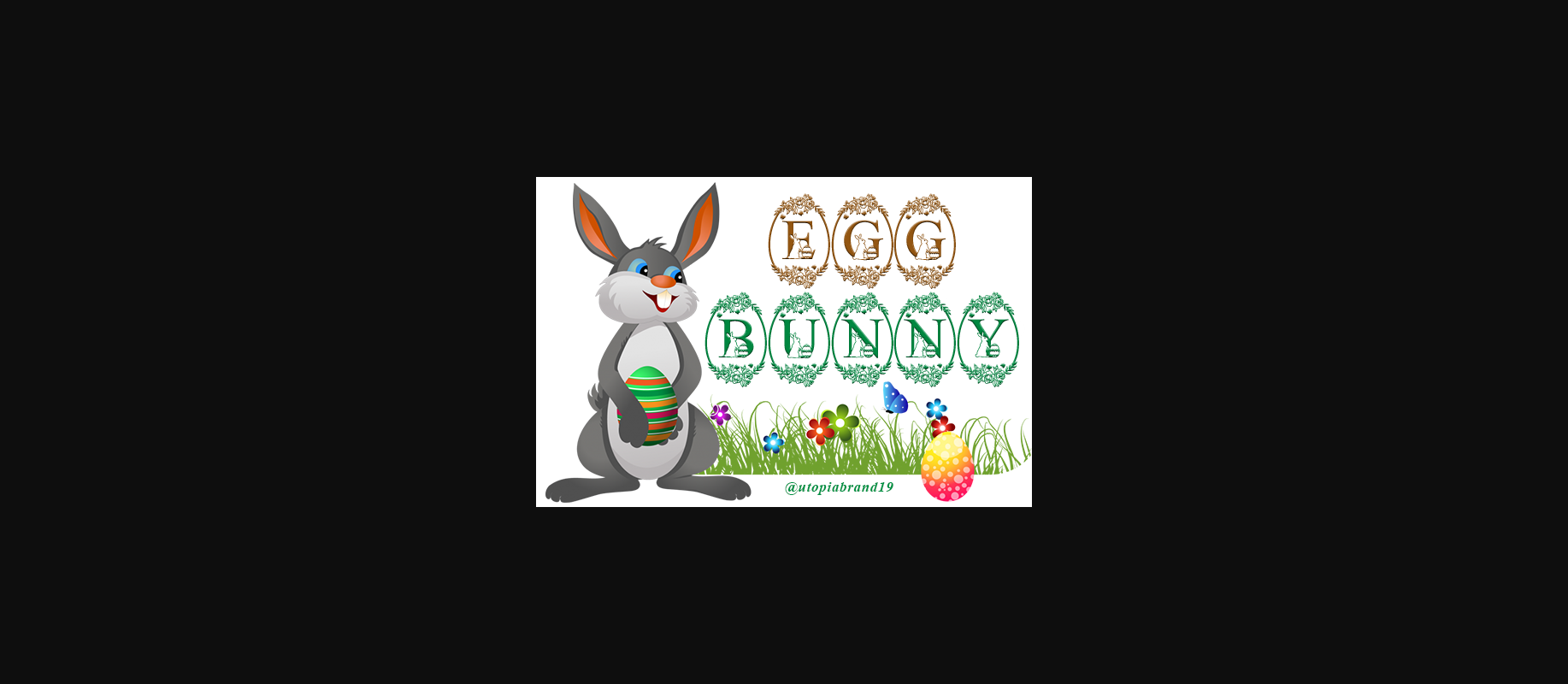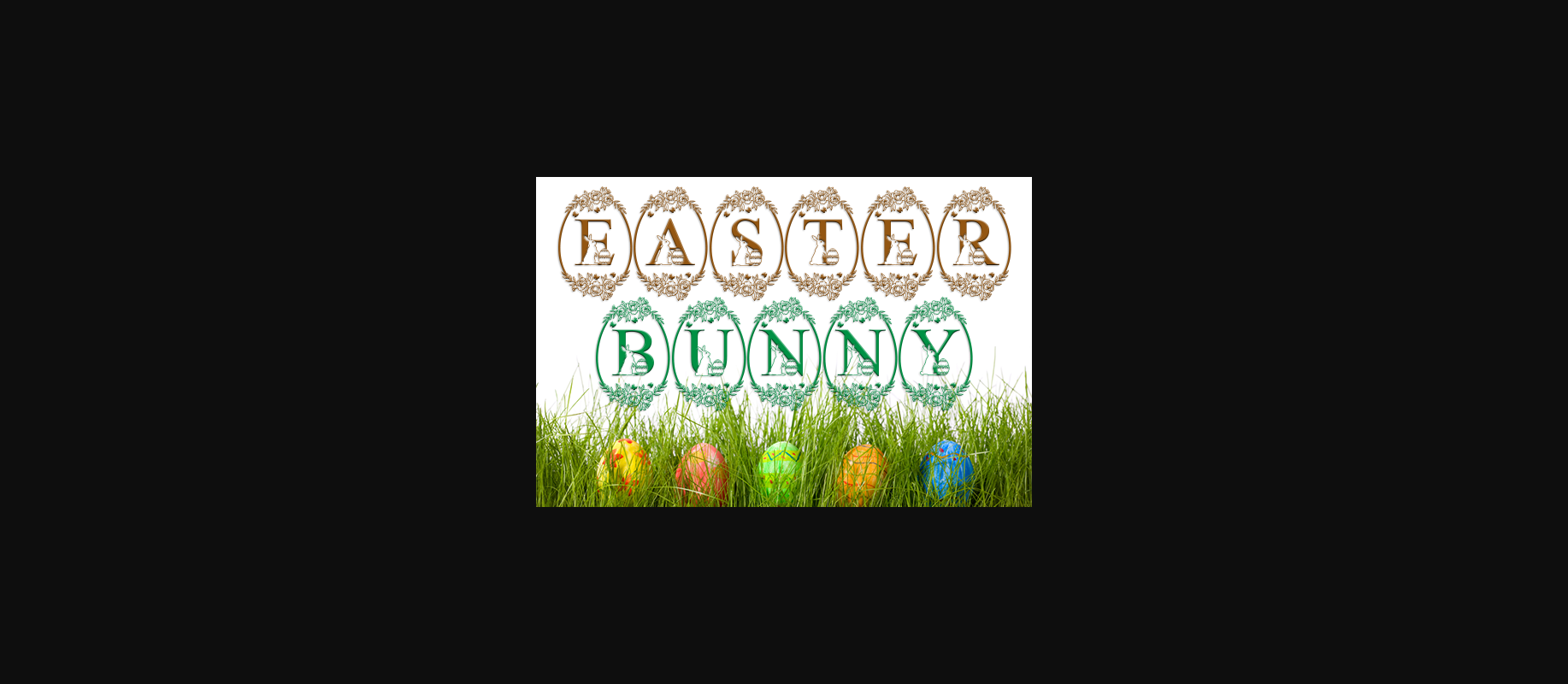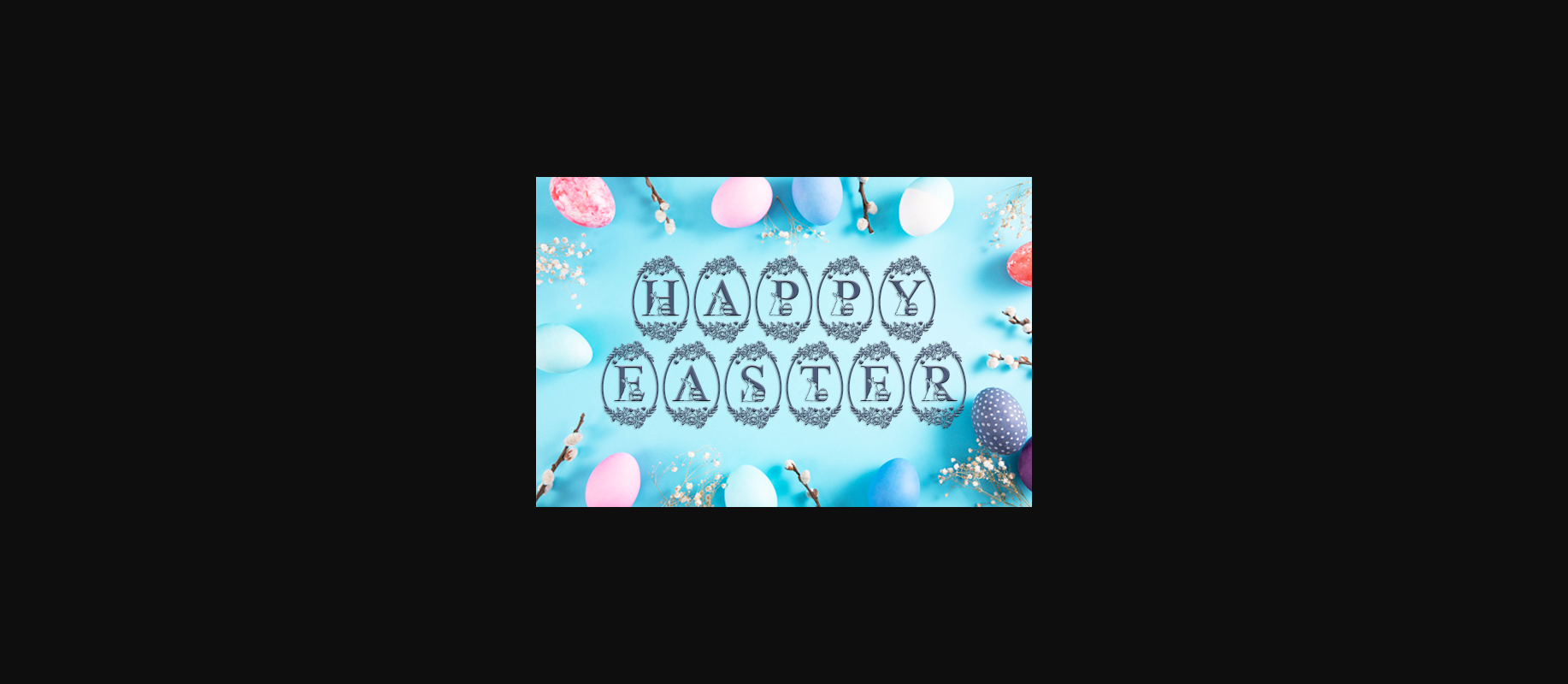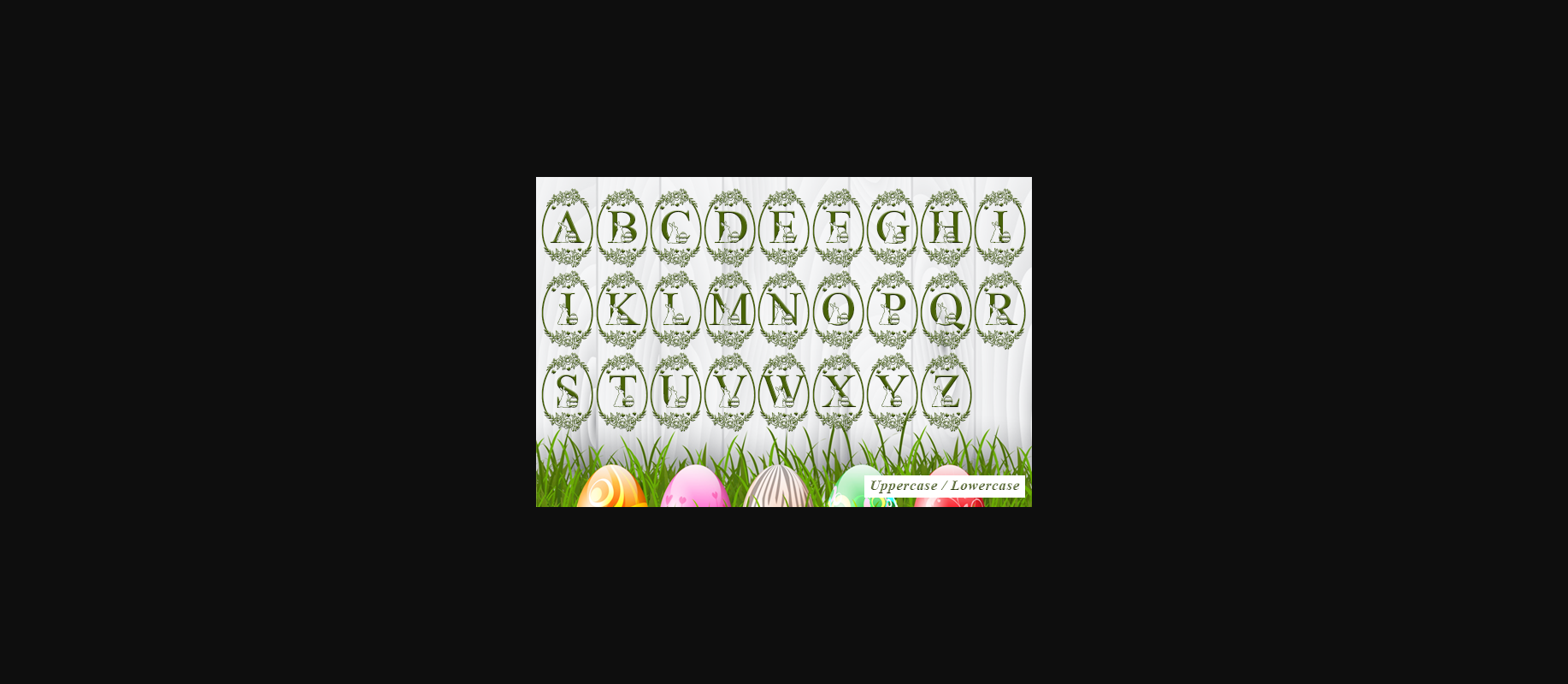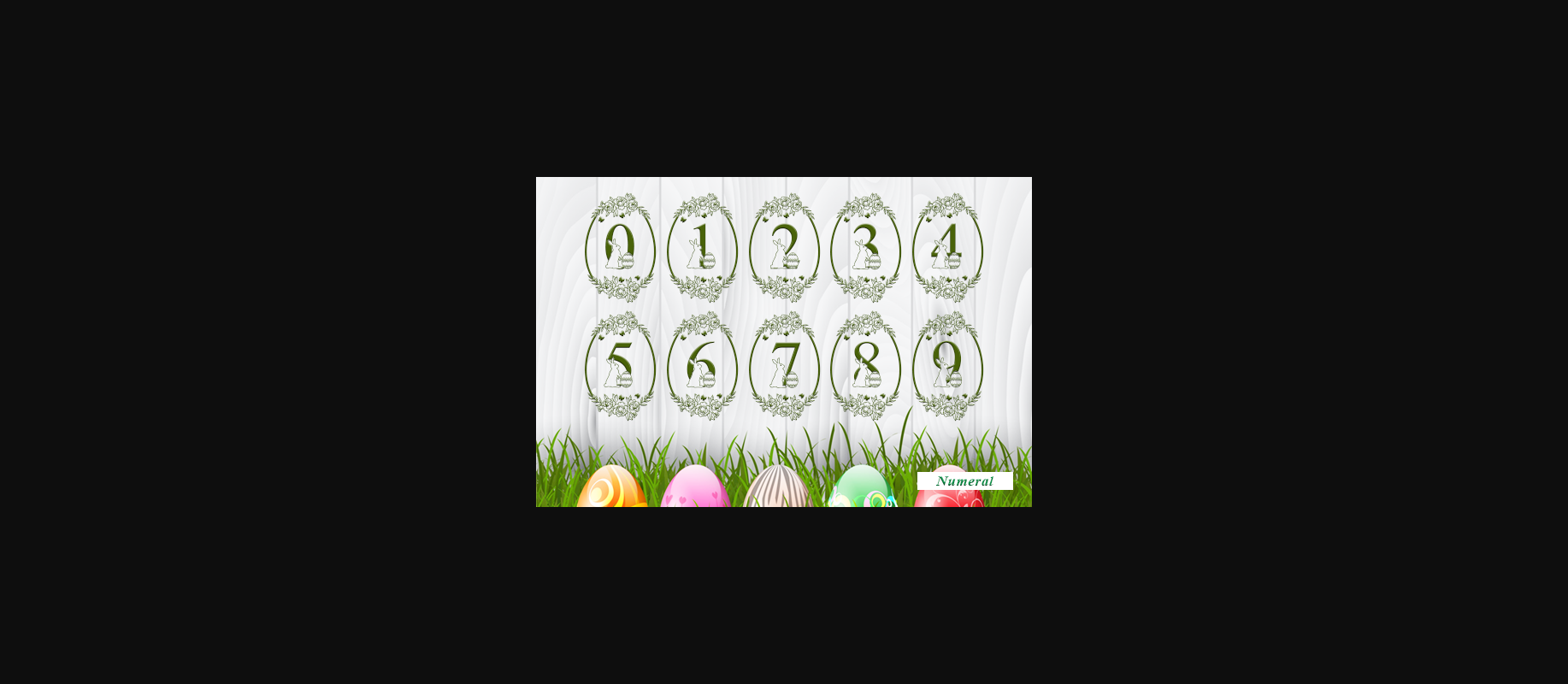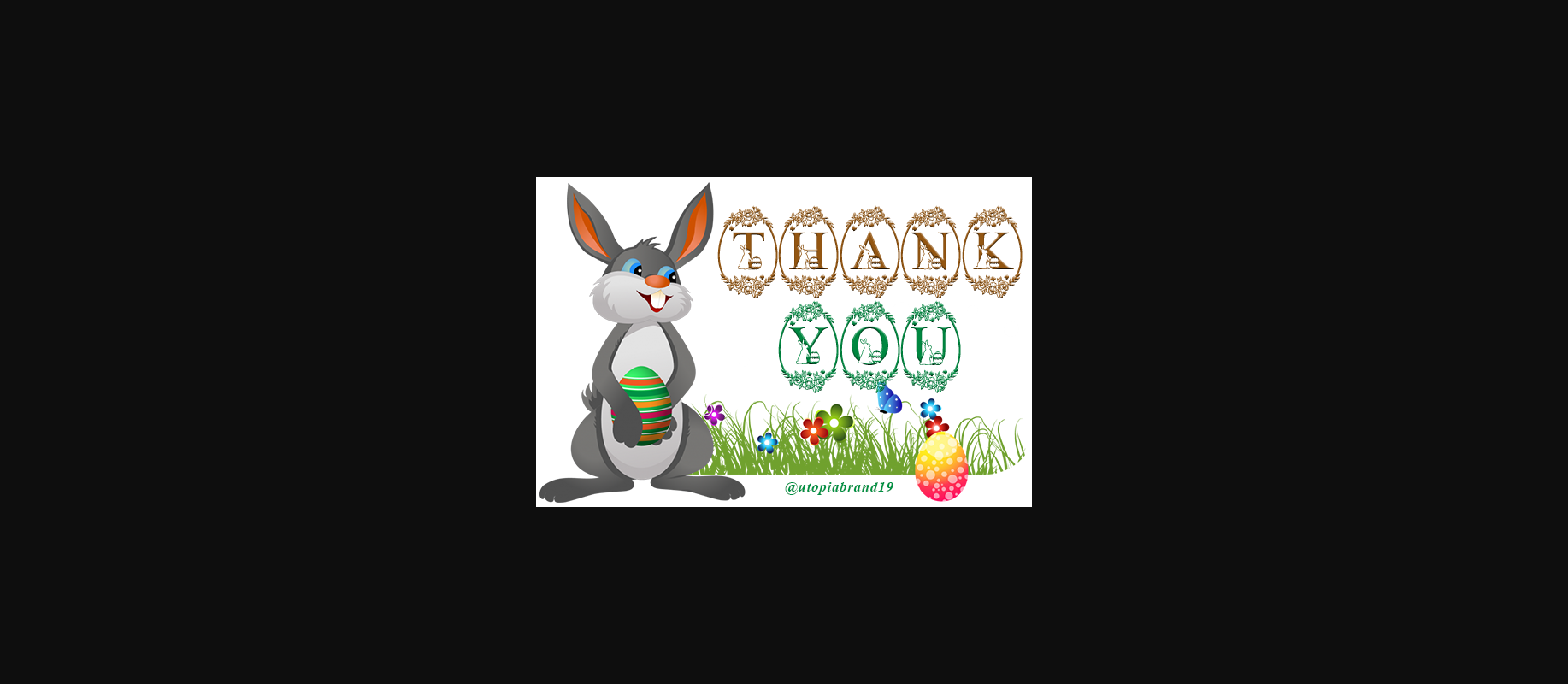
About Egg Bunny Font
Egg Bunny is an adorable and quirky decorative font. It will add an incredibly joyful touch to your designs.
Fall in love with its playful style and use it to create beautiful stationery art, eye-catching social media posts, and much more!